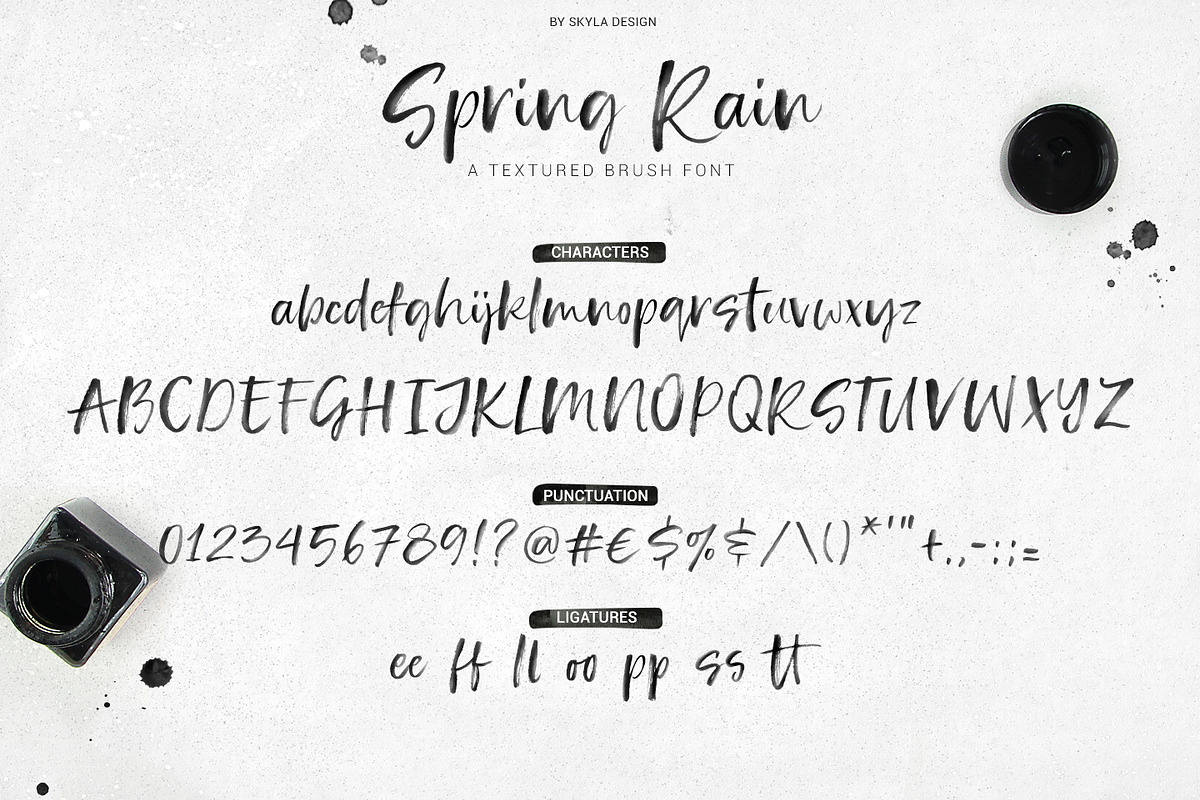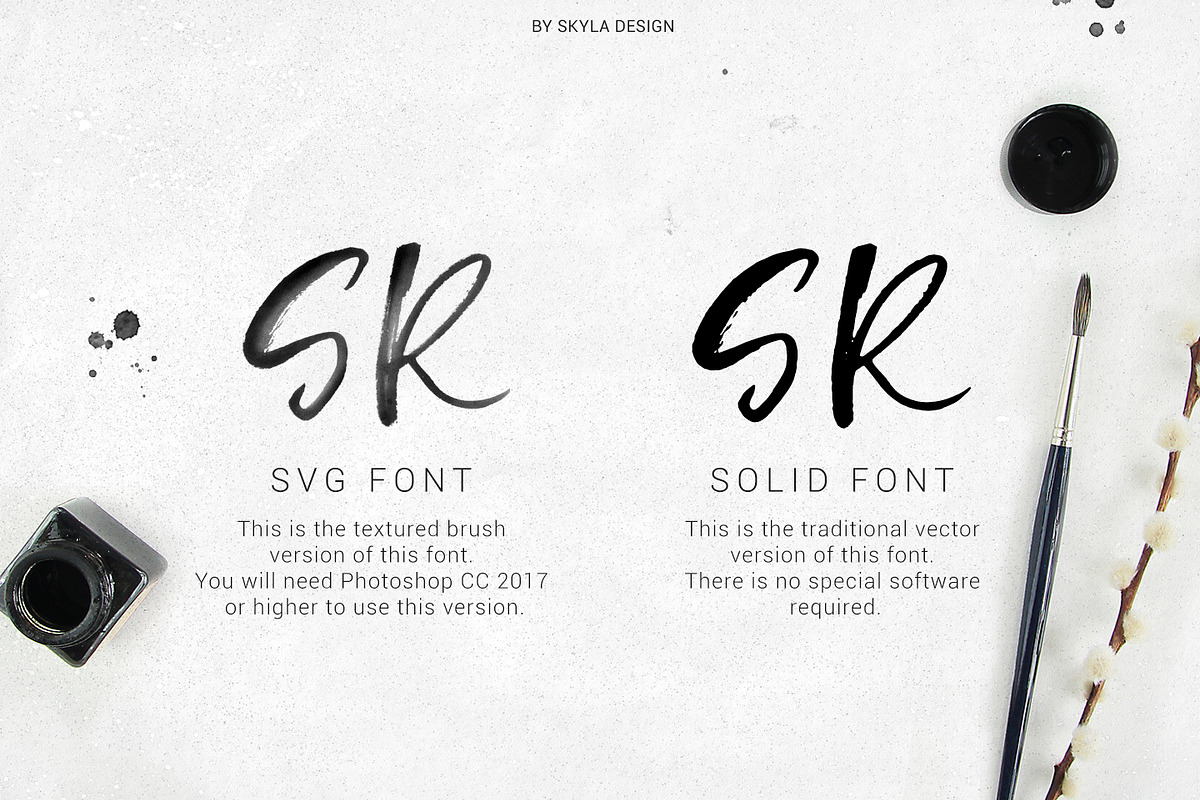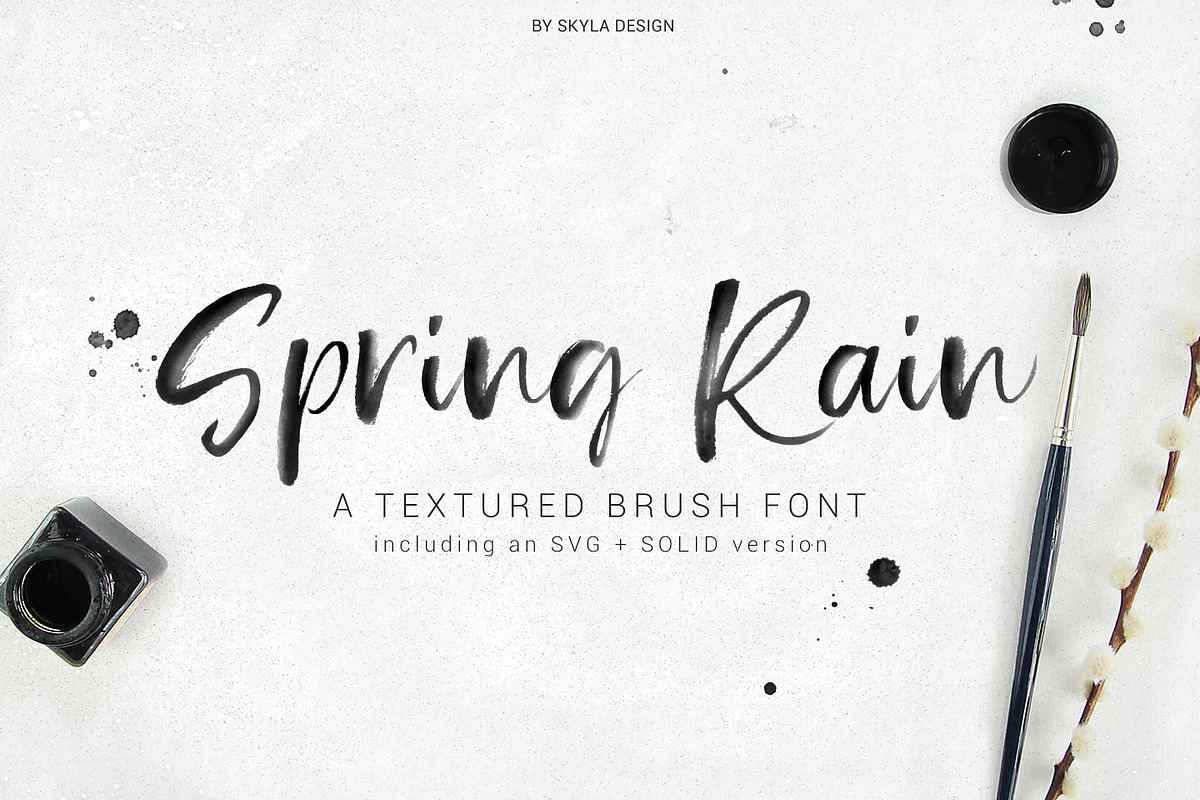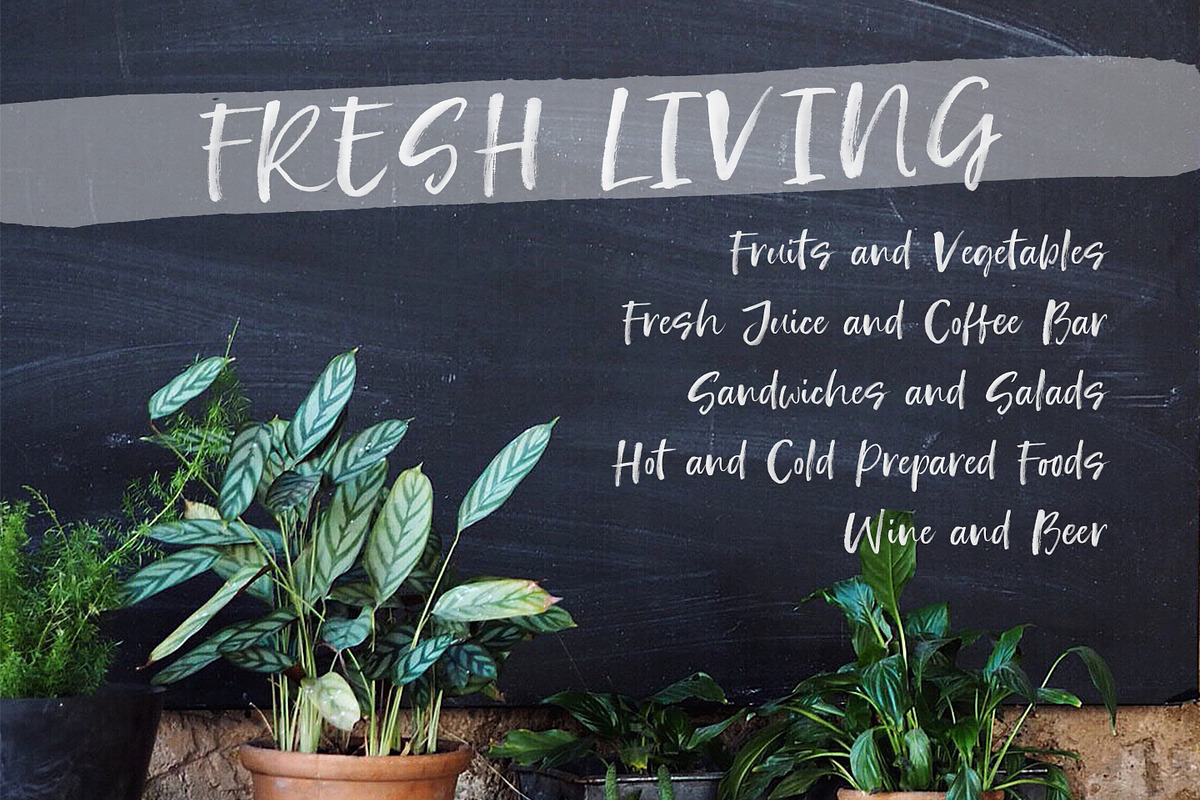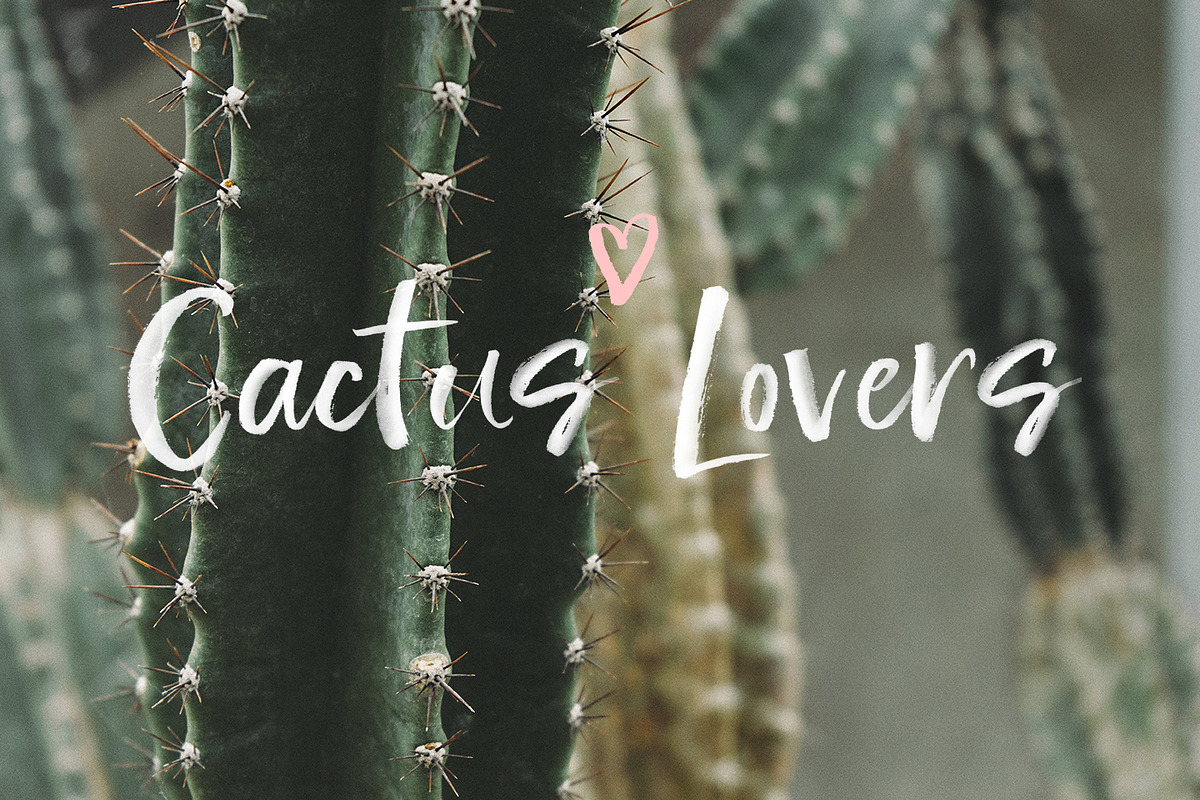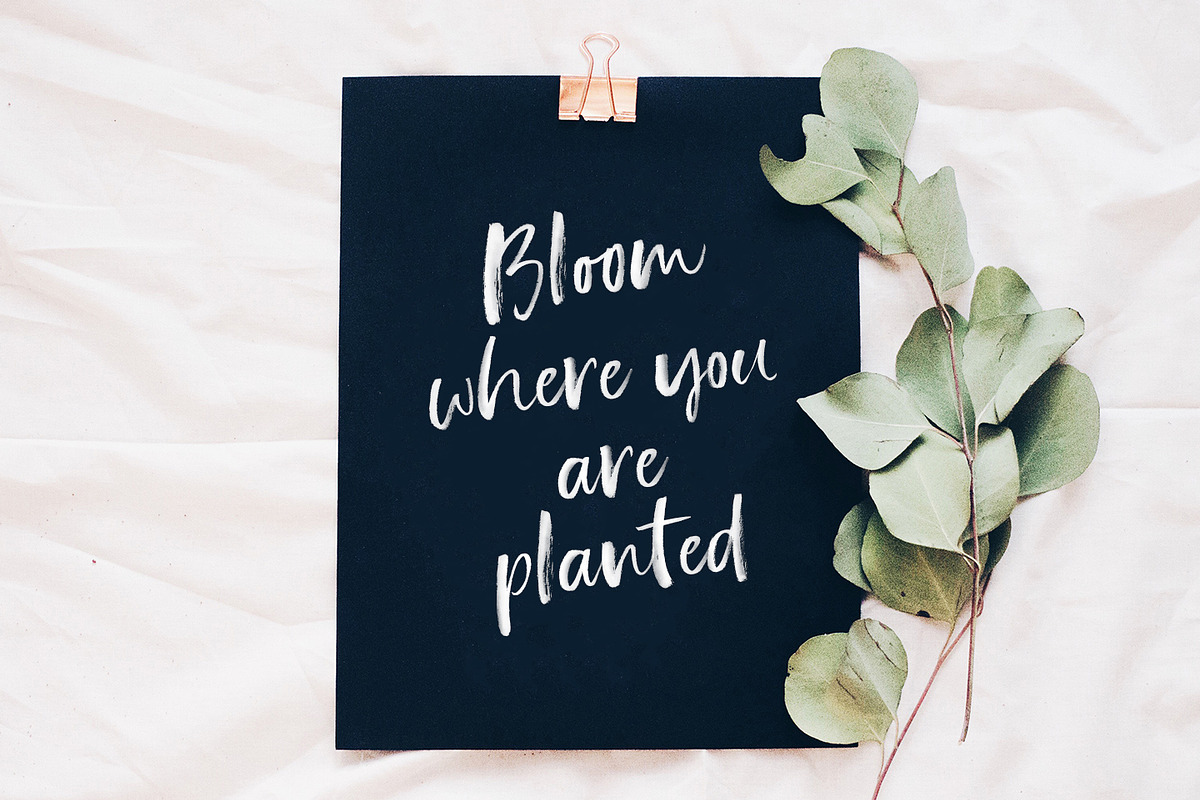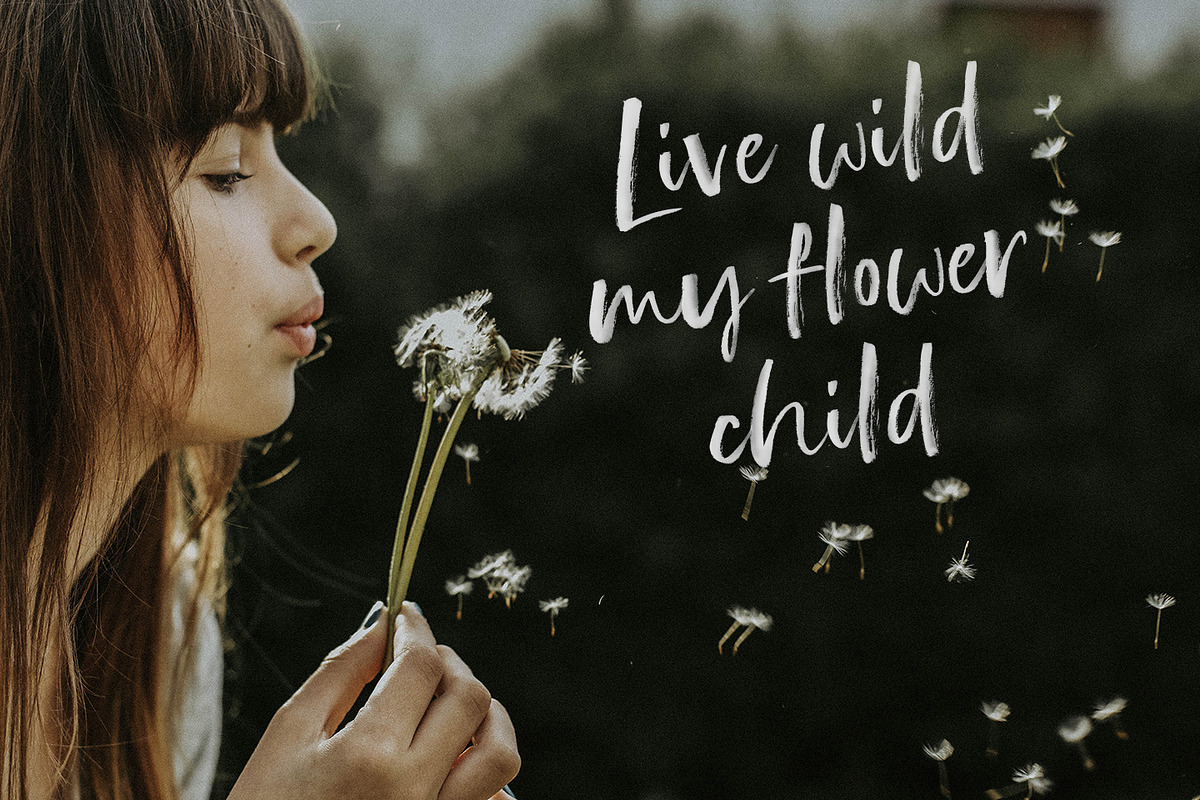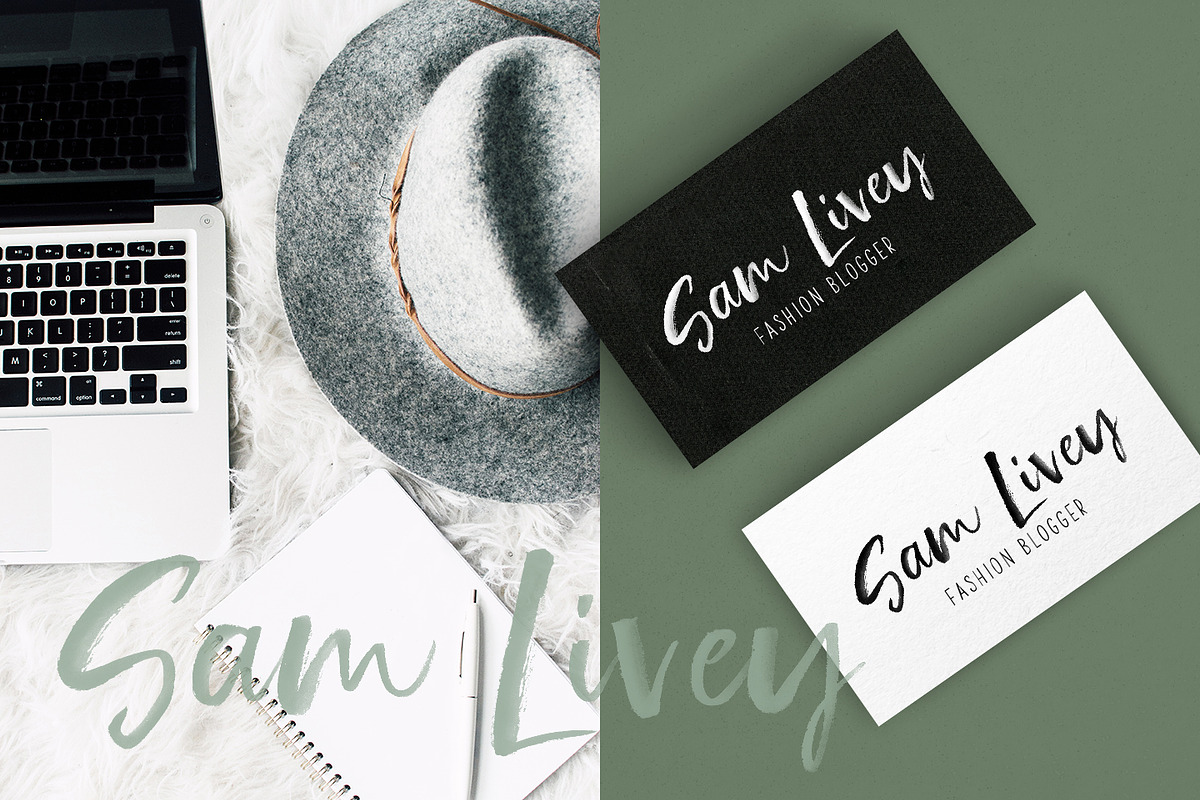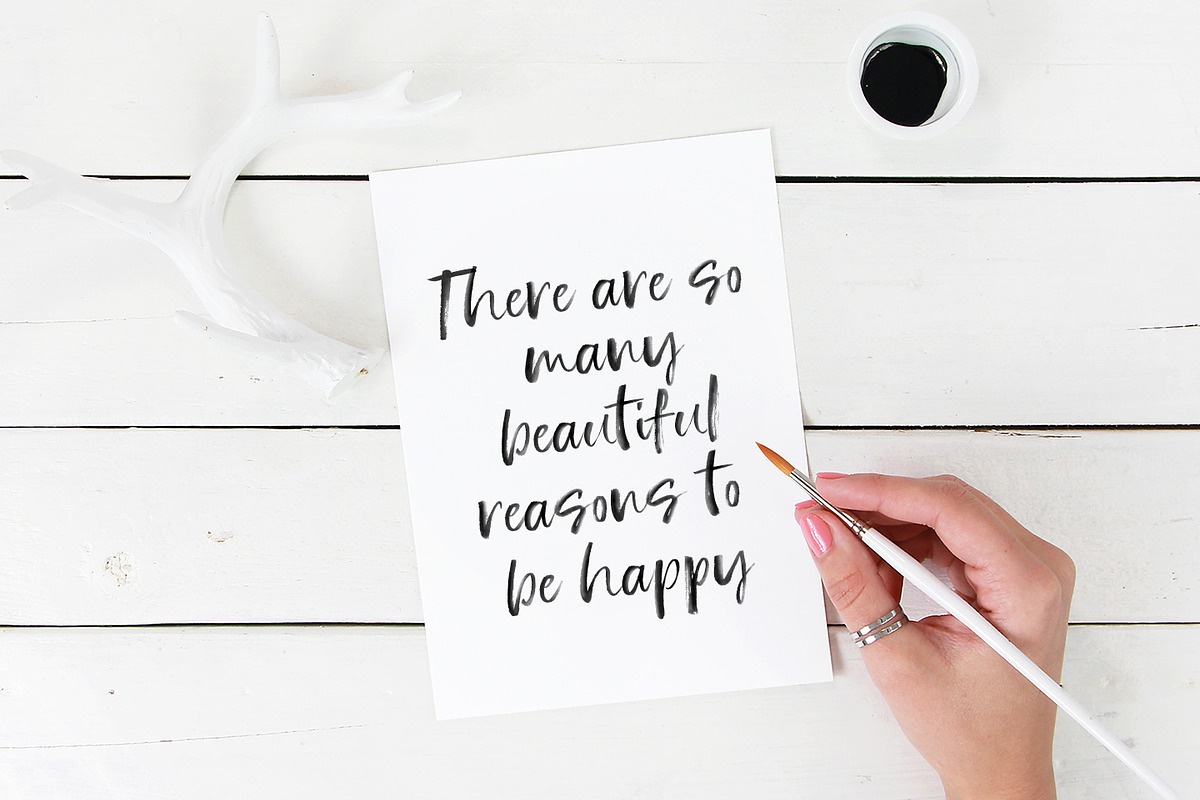
SpringRain SVG watercolor brush font
Spring Rain is a trendy brush font with lots of texture and style. This font comes in both an SVG font where all that yummy watercolor texture is included and also comes in a solid version.
Spring Rain will look awesome on all your branding materials, cards, quotes, and any other amazing projects you are working on.
SVG FONT
This is the textured brush version of this font with watercolor texture and transparency is included.
The SVG version includes Lowercase + Uppercase Characters, Numbers + Punctuation. Due to size limitations, the SVG font does not include international characters but does include the individual diacritic characters.
SOLID FONT
This is the traditional vector version of this font. There is no special software needed.
The SOLID version includes Lowercase + Uppercase Characters, Numbers + Punctuation + International Characters